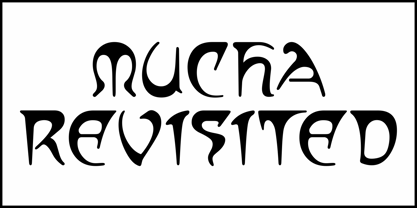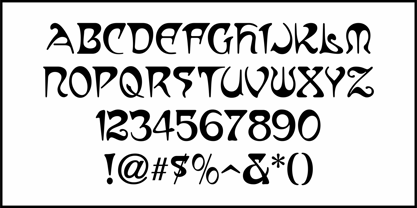
Mucha Revisited JNL
by Jeff Levine
The Mucha Revisited JNL Font Family was designed by Jeff Levine and published by Jeff Levine. Mucha Revisited JNL contains 2 styles and family package options. More about this family
A poster designed in 1911 by Alphonse Mucha for the Moravian Teachers Choir featured his extremely fluid and stylized hand lettering that became the inspiration for many 1960s counter-culture poster artists.
This design is now available as the digital typeface Mucha Revisited JNL in both regular and oblique versions.
Designers: Jeff Levine